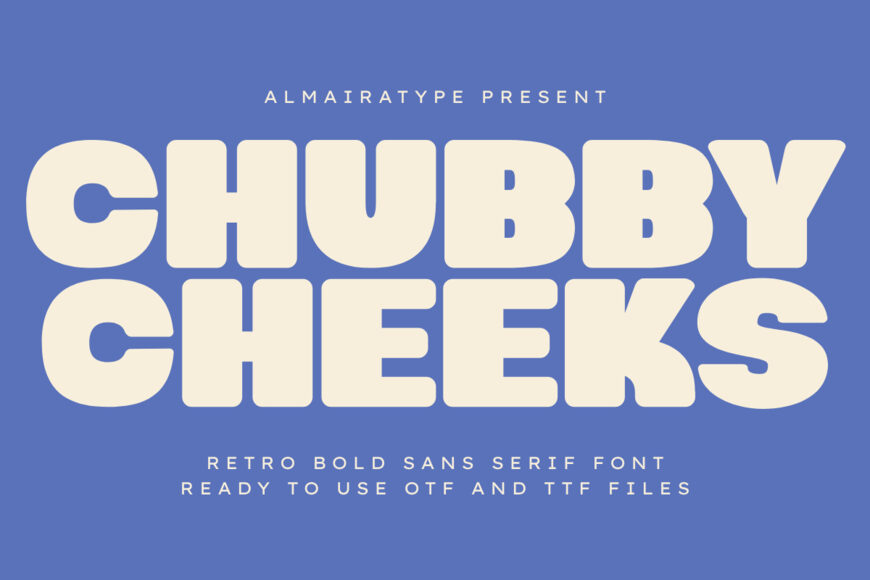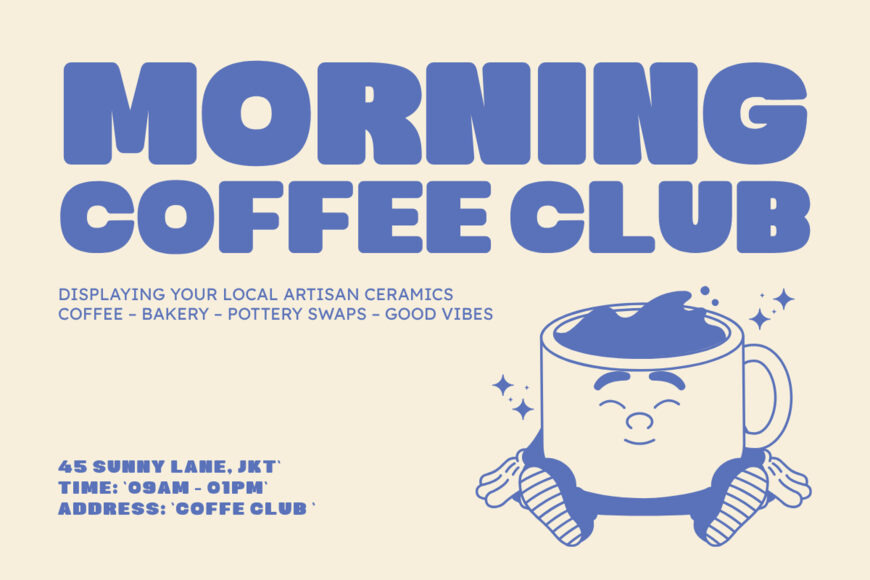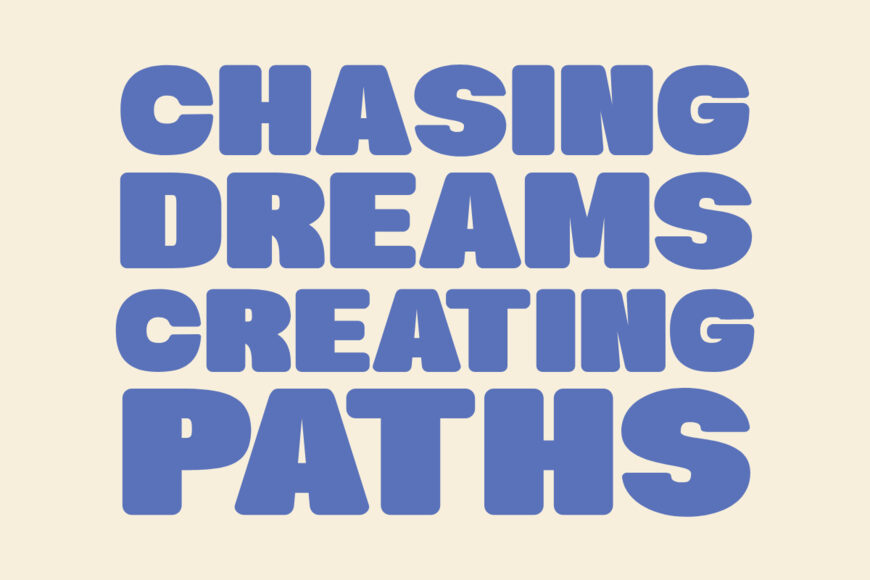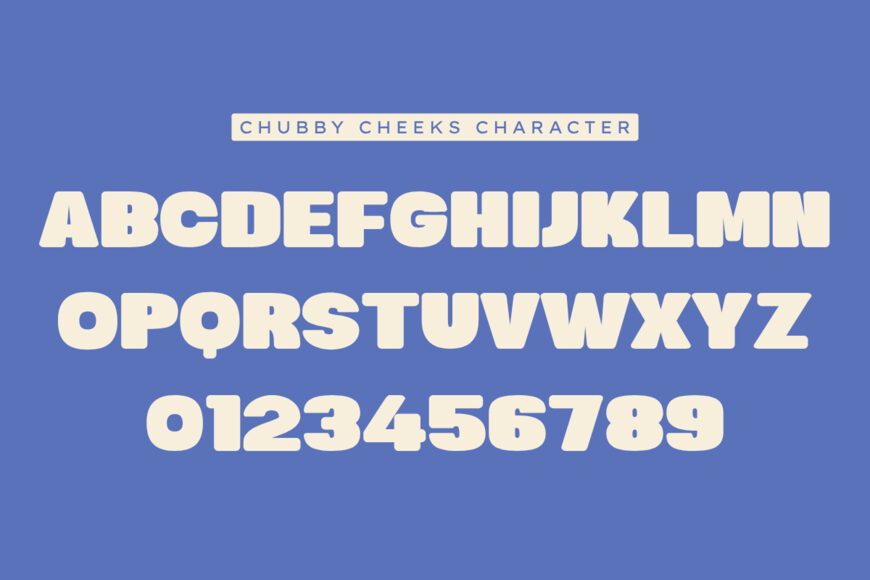
Make a bold, commanding, and delightfully nostalgic statement with Chubby Cheeks, an ultra-bold retro sans serif font engineered for creators who want their headlines to pop with a fun, vibrant charm. Meticulously structured with a heavy display weight, balanced blocky baselines, and softly rounded bubble-like profiles, this versatile font brings an instant blend of vintage warmth and clean modern professionalism to any creative canvas.